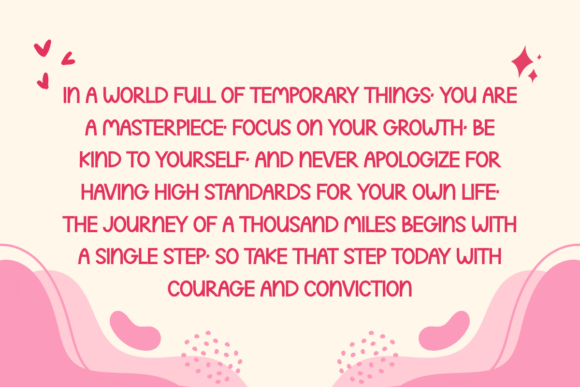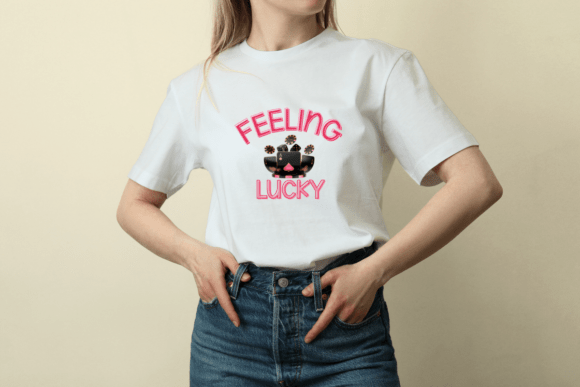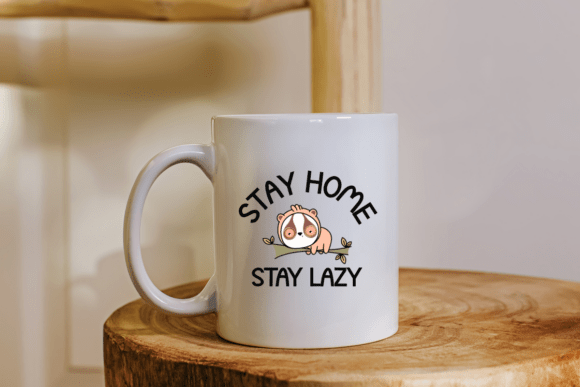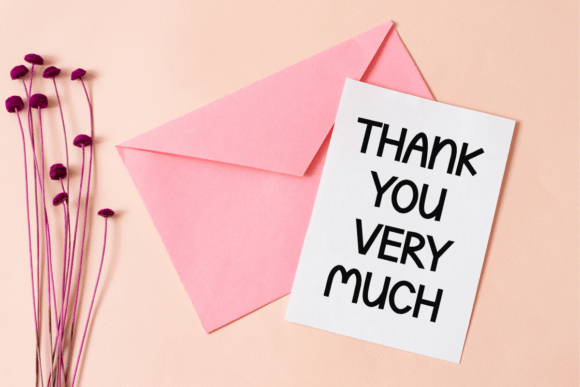
Introduction to Farmhouse Memories Font
Farmhouse Memories is a cool handwriting font with cute aesthetic natural vibes.
Perfect for cricut, planner, mug, sticker, journal, invitation, greeting card, kdp, scrapbooking, crafting, tote bag, quotes, keychain, notes and more This font brings a playful and cute look to your designs.